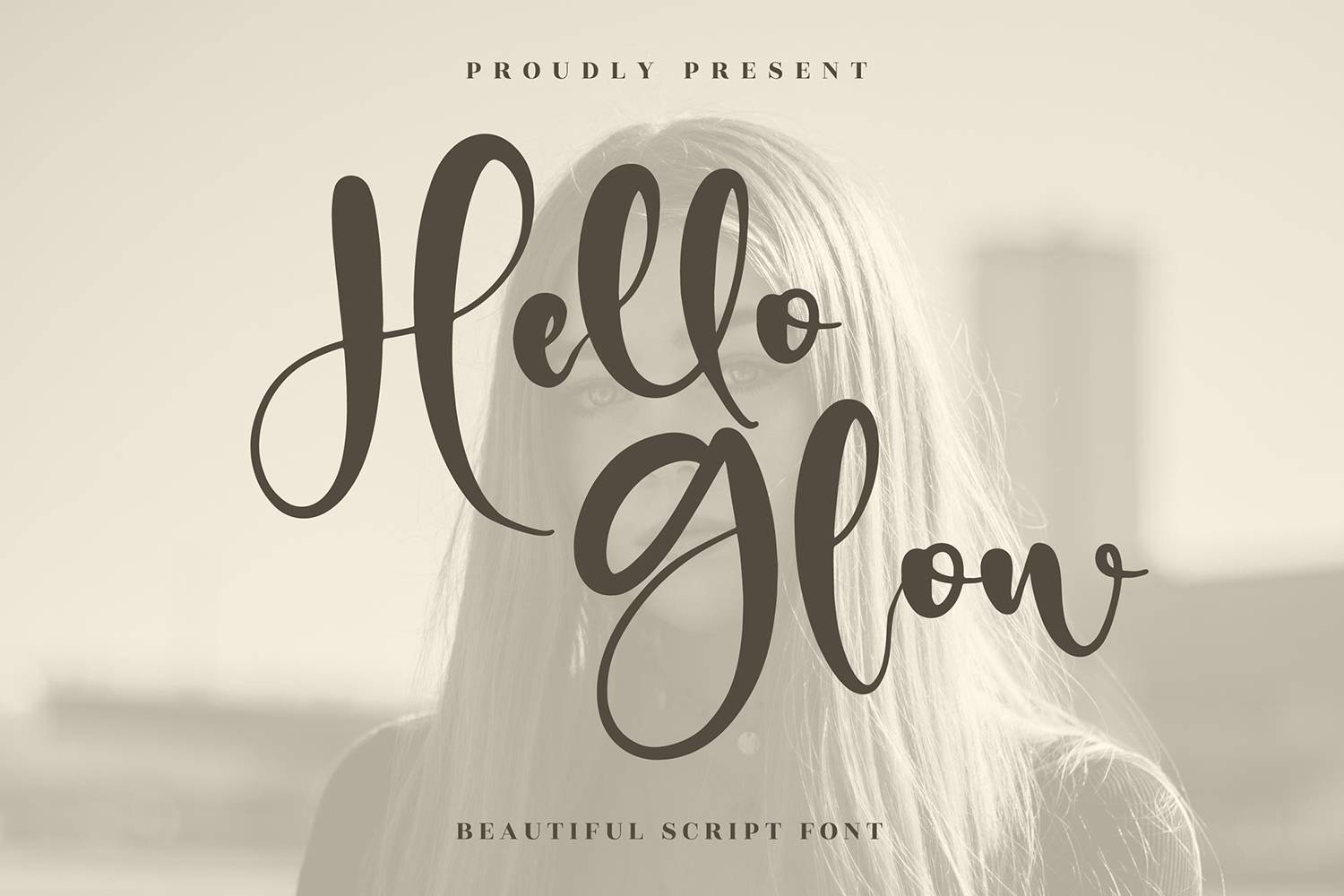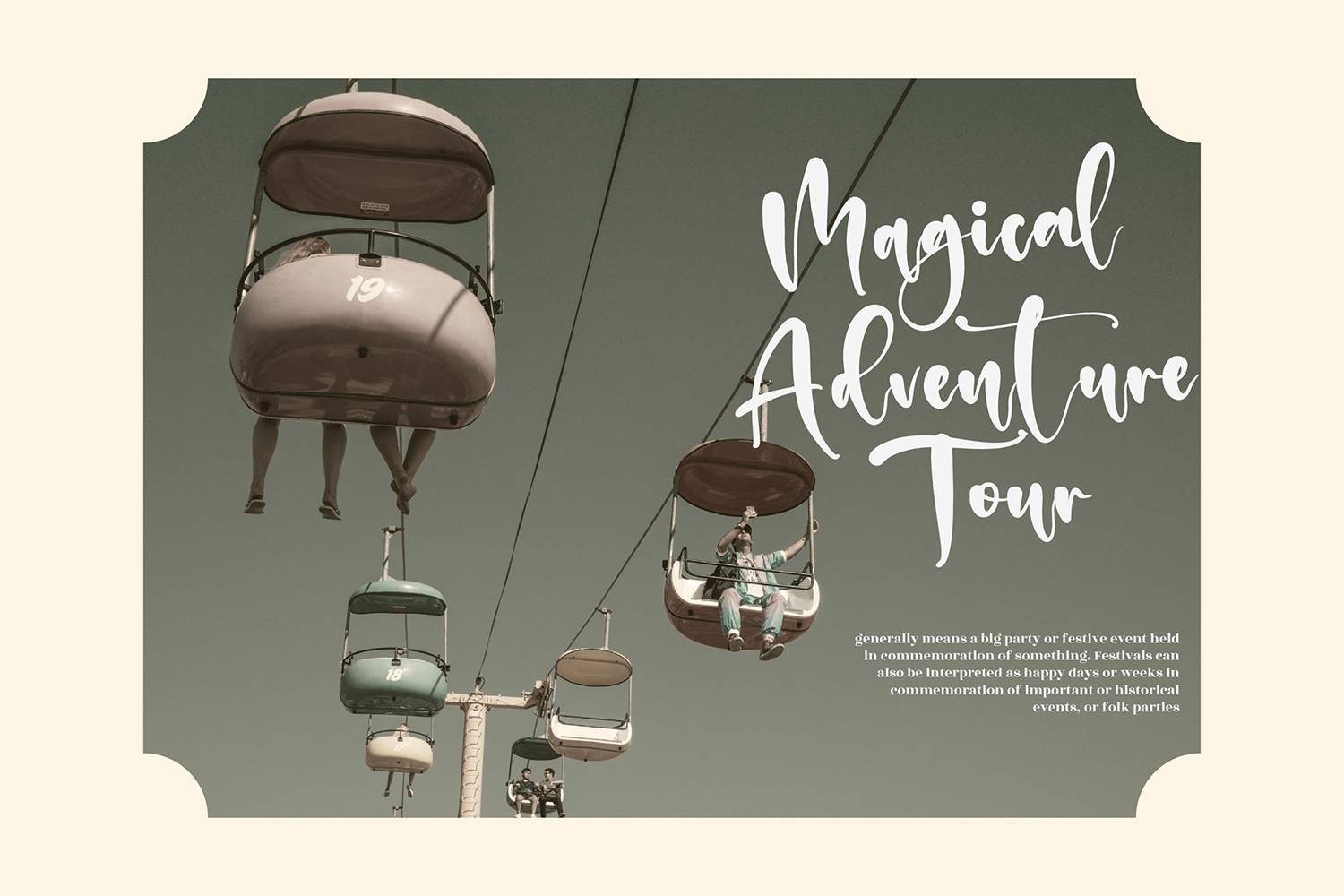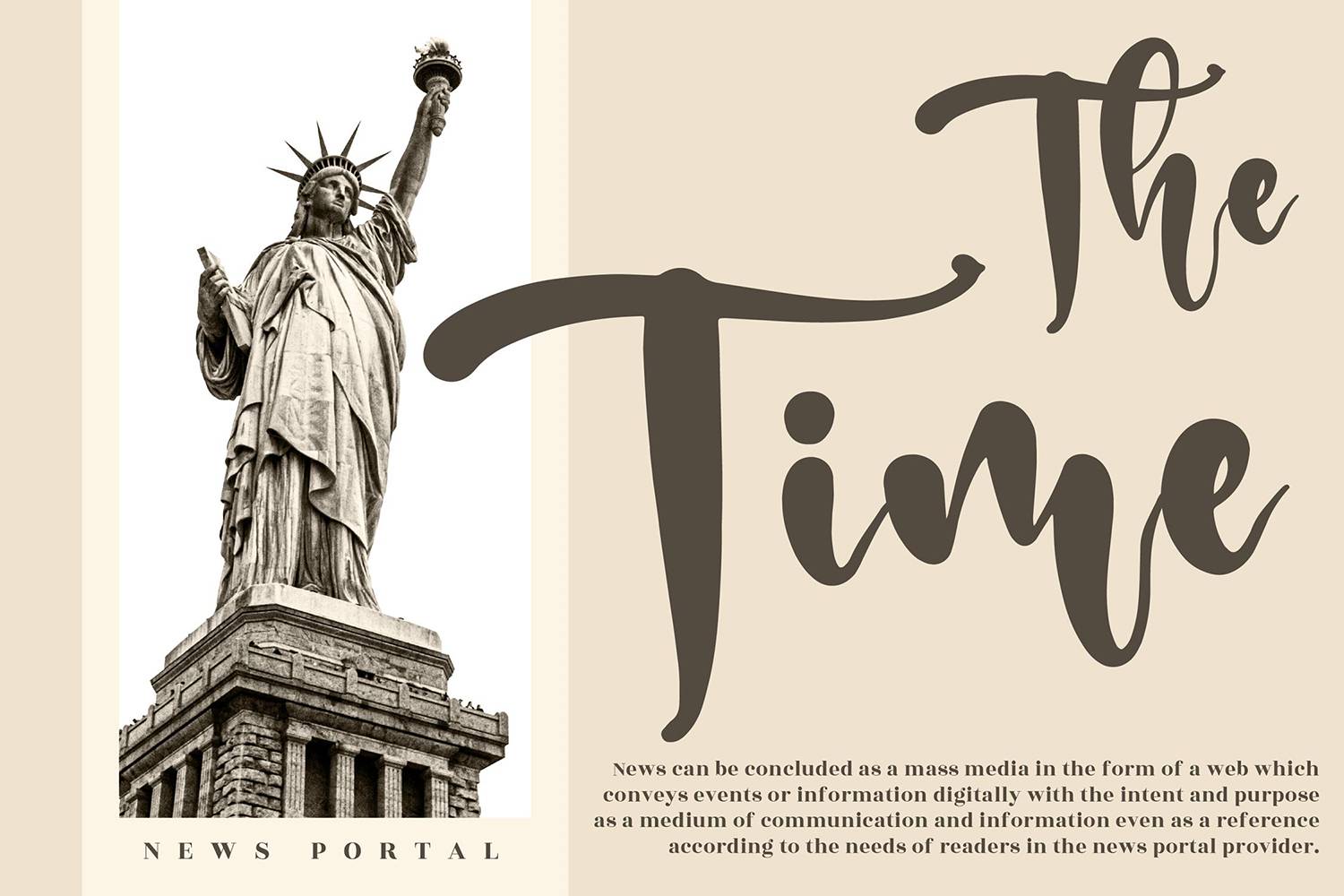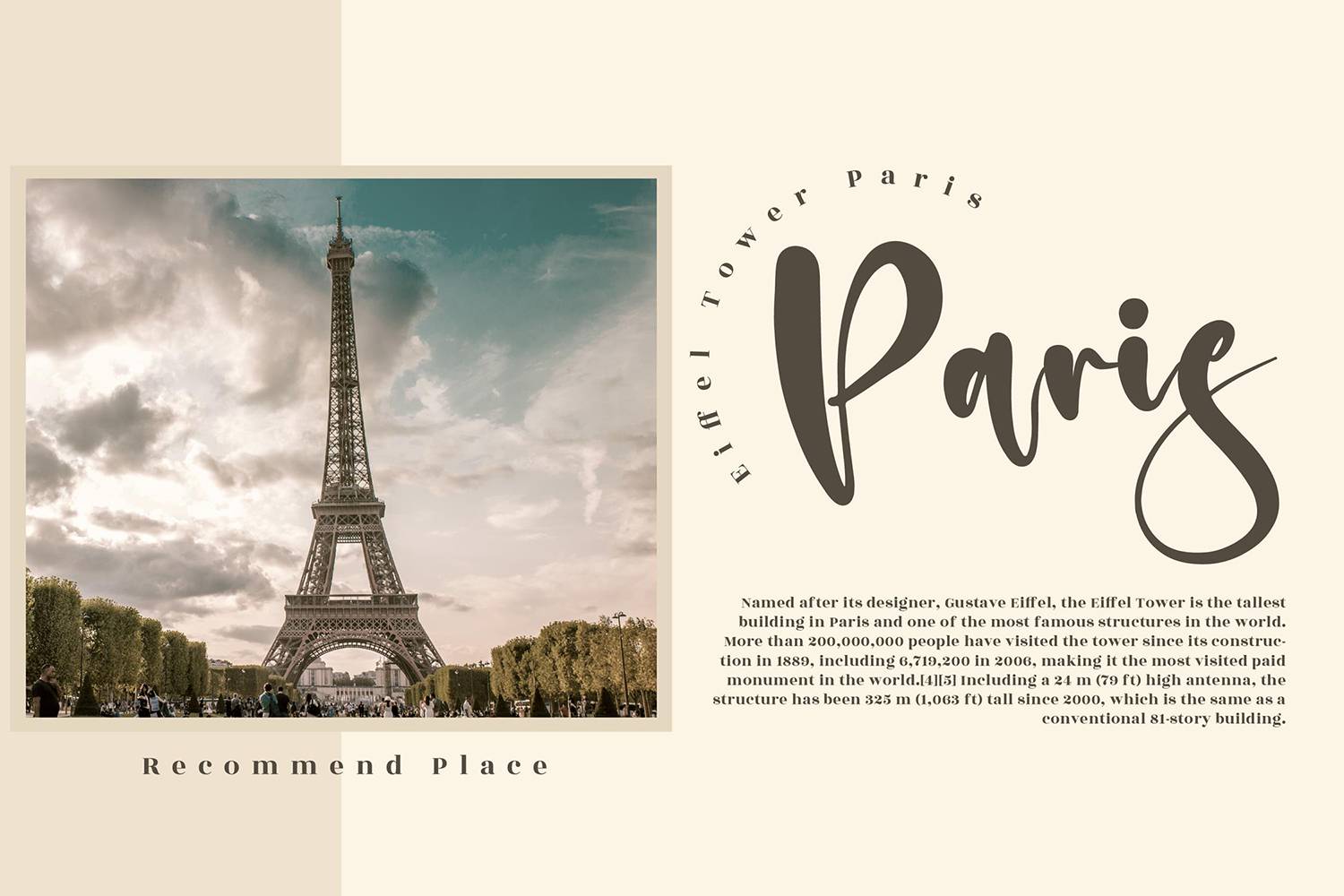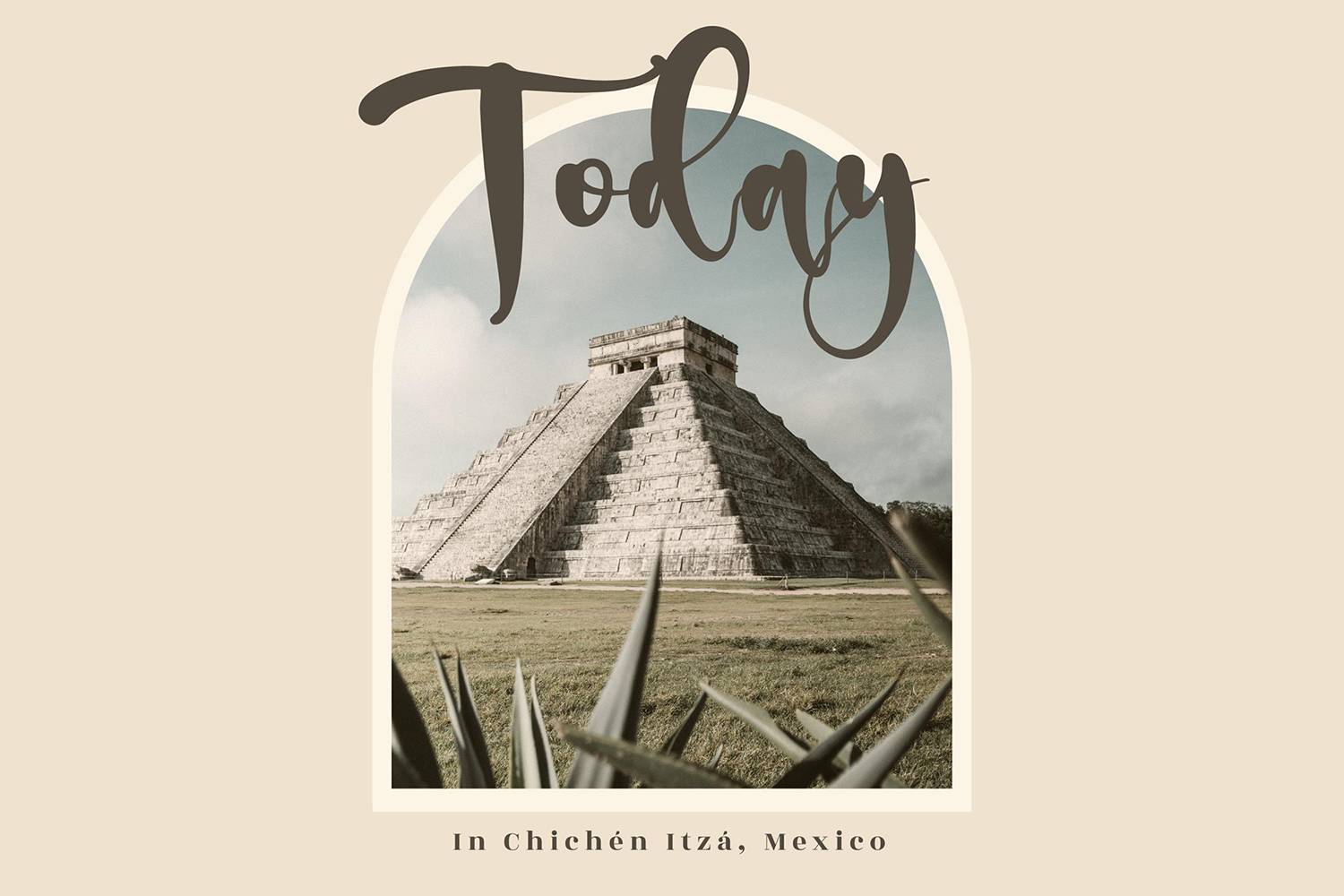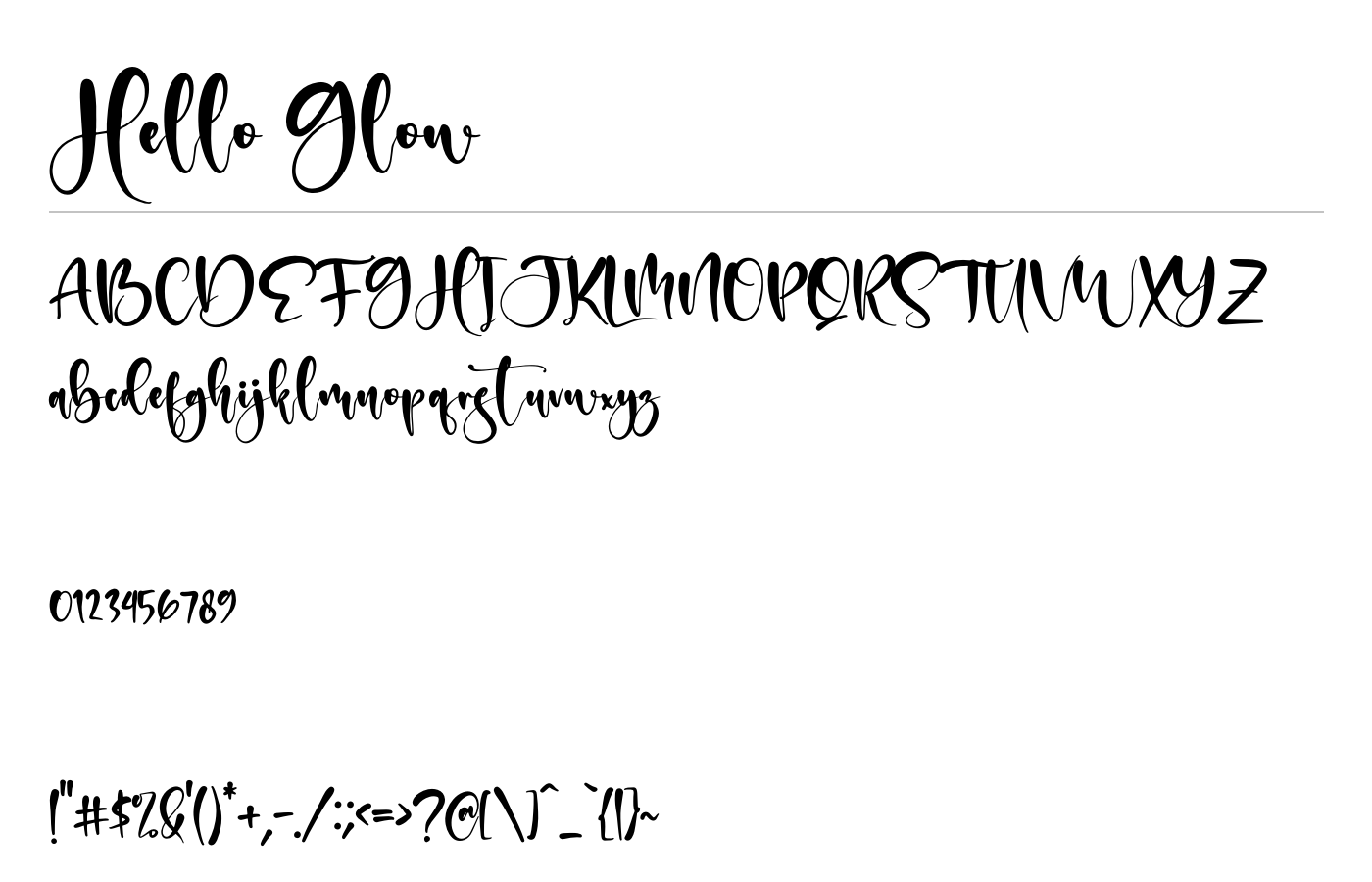
Hello Glow is a charming script font with a playful yet elegant feel, featuring smooth, flowing strokes and a lively handwritten style. Its moderately thick weight, whimsical letterforms, and distinctive curls make it perfect for adding a warm, friendly touch to branding, invitations, and creative design projects that seek a personal, joyful atmosphere. This font works especially well in logos, packaging, and headlines where a unique, handcrafted look is desired.
Hello Glow Font
About Hello Glow Font
| Font family | Hello Glow Font |